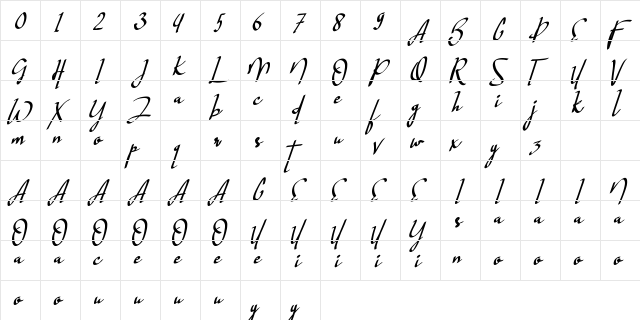
Hastagram Personal Regular
| Designer | Ikrar Bey Khubaib |
Design Context for Hastagram Personal Typeface
Hastagram Personal is a composed and adaptable typeface that performs quietly and consistently across a wide range of design contexts.